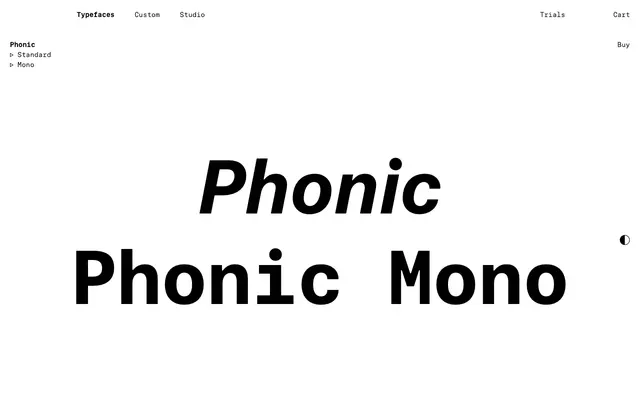
Phonic
A precise sans with rounded acute junctions evoking routed signage, paired with a monospaced companion; four weights from Light to Bold with italics.
Phonic is a sans-serif family characterised by technical precision with sensory detail. Wherever two strokes meet at an angle smaller than 90 degrees the junction is rounded, evoking machine-made lettering and signs cut with a milling head. Other corners are as sharp as expected, producing a compelling mix of straight and round. Inner forms in glyphs like b and g are smooth and undisturbed by the verticals; italics slope only as much as needed to set themselves apart in text; and round dots reinforce a quietly affable quality. Phonic comes alongside a monospaced sibling, Phonic Mono, that embraces fixed character widths and amplifies the technical timbre. Both subfamilies were drawn in four weights from Light to Bold, with stylistic alternates that swap round dots and punctuation for square ones.
Schick Toikka frame Phonic's softened acute junctions as a stylistic feature evoking machine-made lettering, specifically signs made with routed or engraved letters where junctions are limited by how the milling head can move.